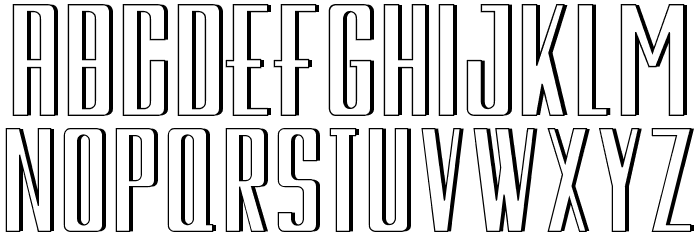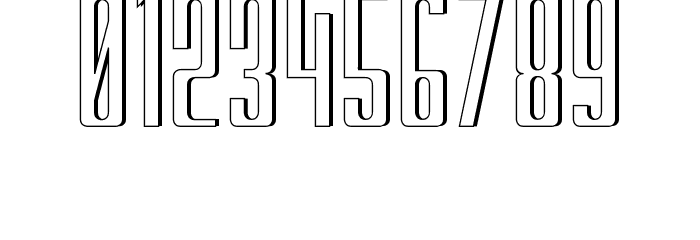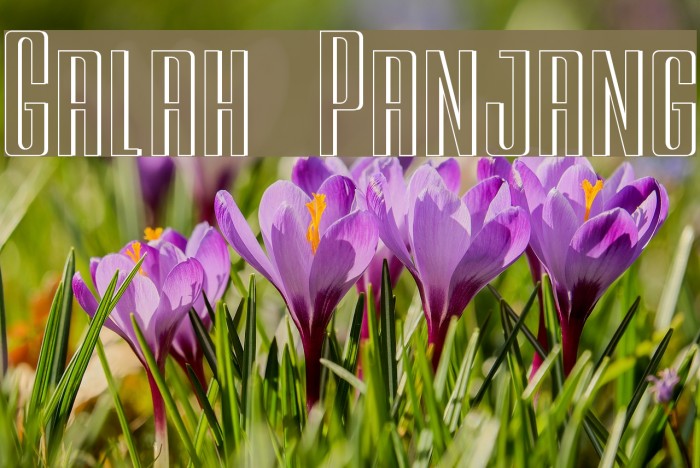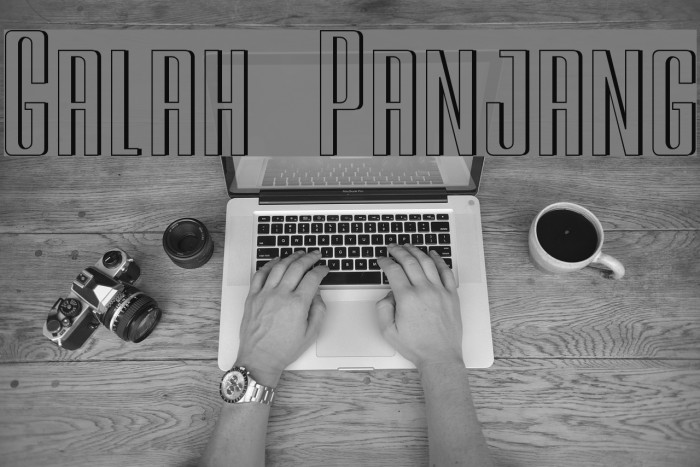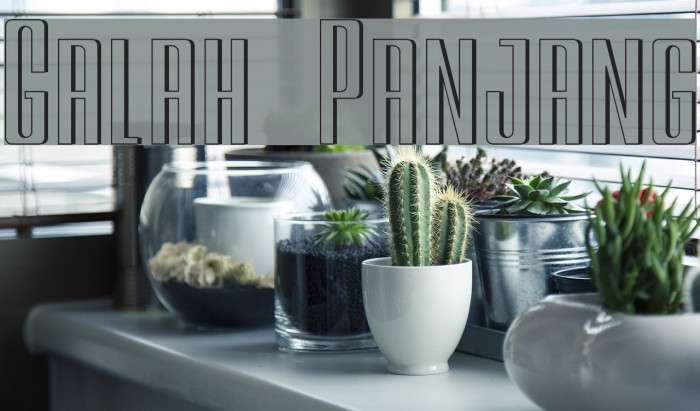
Galah Panjang Font
This font features a unique, elongated design with a modern and geometric aesthetic. The characters are outlined, giving them a hollow appearance that adds a sense of depth and dimension. The uppercase letters are tall and narrow, while the lowercase letters maintain a consistent height, creating a harmonious balance. The numerals and special characters follow the same stylistic approach, ensuring uniformity across the typeface. The overall look is sleek and contemporary, making it suitable for projects that require a bold and eye-catching display.
A modern, geometric font with elongated, outlined characters.
- Proposed Projects: Ideal for branding, posters, headlines, and any design that requires a striking and modern typeface.